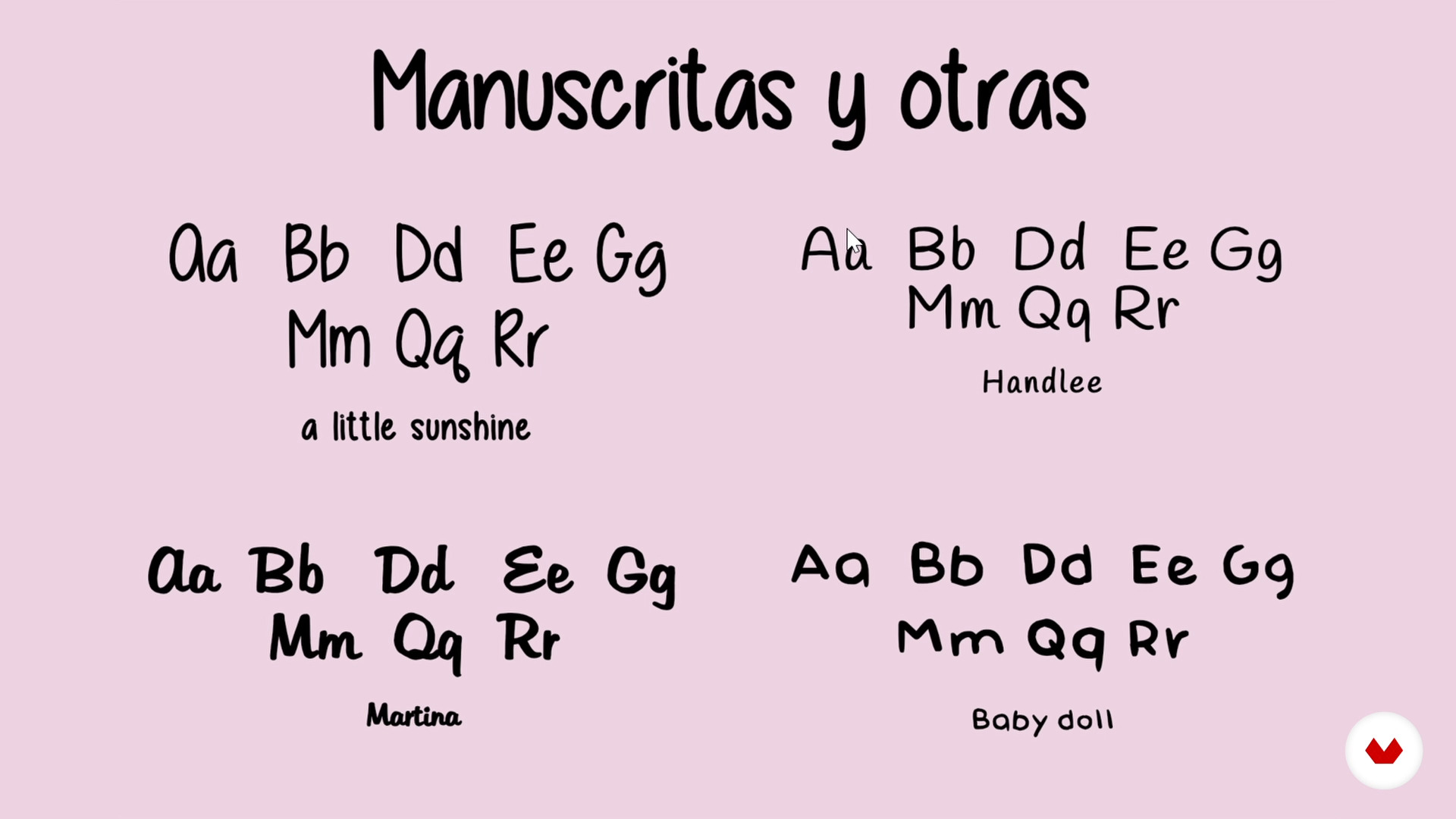
Typefaces and exploration of letter carving
About the video: Typefaces and exploration of letter carving
“In this lesson, I'll tell you about letter carving: what to consider when selecting a font for your design, which digital fonts I recommend, and which ones to avoid at first. In addition, I will give you my recommendations so that carving letters is a pleasant experience.”
In this video lesson Maria López addresses the topic: Typefaces and exploration of letter carving, which is part of the Domestika online course: Stamp Making with Typography and Imagery. Learn rubber-engraving techniques to create personalized stamps that combine letters and images.
“Hello. in this lesson. i'll discuss letter carving. I'll suggest digital fonts to use. highlight those to initially avoid. and share tips to ensure your carving journey is enjoyable and successful. I will guide you through various digital resources to explore fonts. Come along with me on this journey of Now let's move on to digital fonts. These are the ones I use most because they are easier for me. when crafting a design. i can explore many variations and achieve a lot creatively. of typography within the design more easily. Initially. i want to introduce you to resources for exploring fon...”